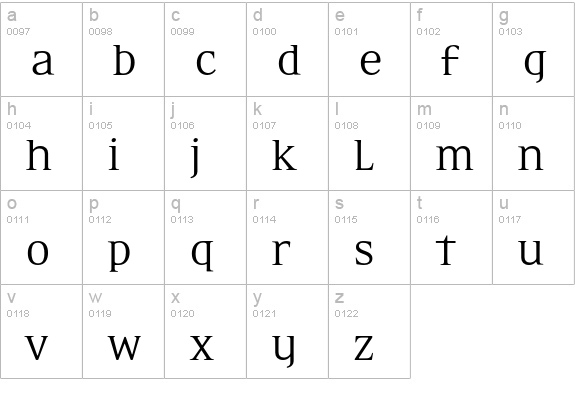
EideticNeo Omni is a versatile and modern font that is perfect for a wide range of design projects. Its clean lines and stylish aesthetic make it suitable for both digital and print applications. This font is ideal for logos, branding, headlines, and more. What sets EideticNeo Omni apart is its unique combination of elegance and readability, making it a standout choice for any design project. Whether you're creating a sleek website or designing a striking poster, this font will help you achieve a professional and polished look. Best of all, EideticNeo Omni is completely free to download at FontsMarket.com. So, you can add this stylish font to your collection without breaking the bank. Don't miss out on the opportunity to enhance your designs with this versatile and eye-catching font. Download EideticNeo Omni today and take your projects to the next level.